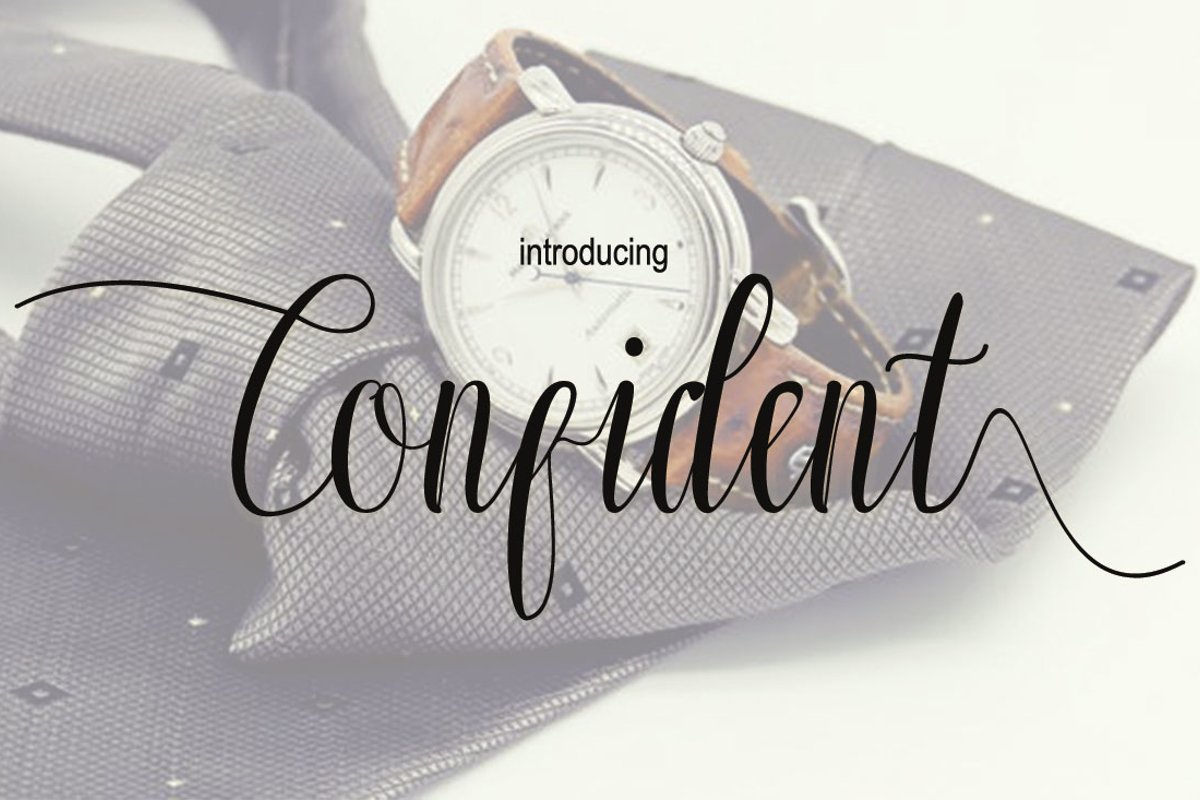
Comfident
confident
Anton is modern script font and modern script style, every single letters have been carefully crafted to make your text looks beautiful. this font will perfect for many different project ex:, poster,, branding,logo, fashion, apparel, letter, invitation, wedding, stationery, quotes, blog header. etc.include the any alternatif gylps so include ;
Comfident example image 1